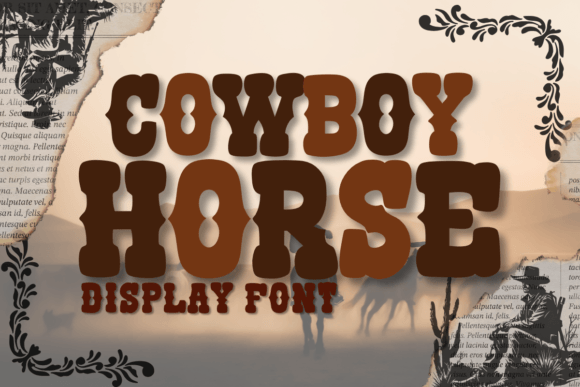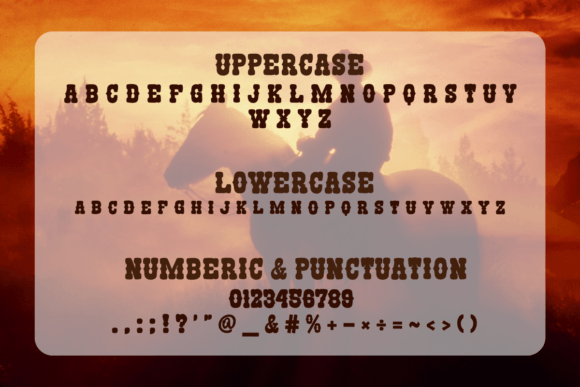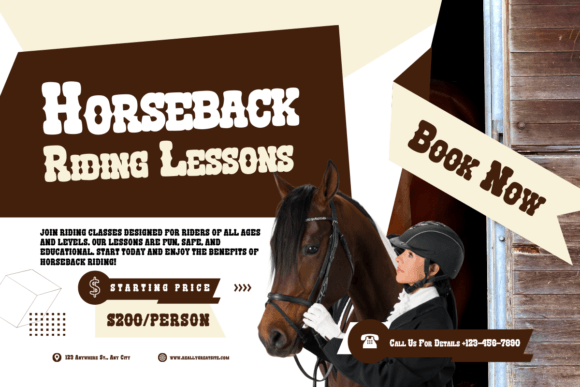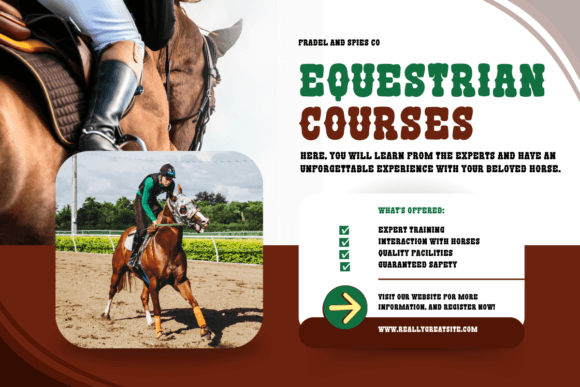
Cowboy Horse Font
About the Cowboy Horse Font
Unleash your creativity with Cowboy Horse Font, a versatile font perfect for a wide range of applications. Cowboy Horse is a fun, Western-style font that looks like it was made for a cowboy’s poster. It has big, bold letters with a rugged, old-timey feel, perfect for adding a touch of the Wild West to your designs.
This font excels in headline applications, short impactful statements, and Western-themed branding projects. It’s ideal for posters, logos, and packaging designs where a bold, attention-grabbing presence is desired. However, its strong character and large x-height make it unsuitable for body text or UI elements requiring high readability.
Cowboy Horse’s rugged personality pairs well with clean sans-serif fonts like Montserrat or Open Sans for contrast and readability in supporting text. A touch of elegance can be added with a complementary serif like Playfair Display for a sophisticated Western feel, or a more playful script font like Pacifico to enhance its fun, informal aspect.
The overall personality of Cowboy Horse is bold, rugged, and playful, lending itself to projects requiring a strong, nostalgic, and slightly whimsical Western aesthetic. Avoid using it where a refined or minimalist approach is necessary.
Cowboy Horse Font Usage Examples
Cowboy Horse Font Example